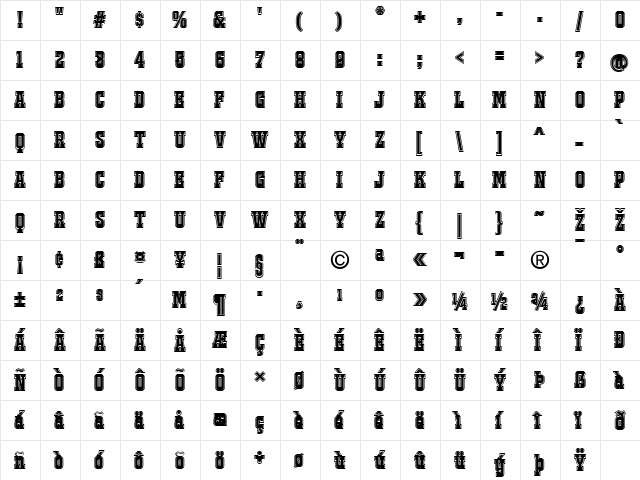
JACKPORT COLLEGE NCV Regular
Design Context for JACKPORT COLLEGE NCV Typeface
JACKPORT COLLEGE NCV has the bold swagger of sports branding: strong, assertive letterforms designed to dominate headlines and jerseys alike.
A natural choice for gym brands, fantasy sports, jersey lettering, and action-driven headlines.
Font Pairing: Use alongside a condensed or geometric sans for supporting copy — keep the pairing bold, functional, and free of ornament.
Pro Tip: Use JACKPORT COLLEGE NCV in all-caps headlines where its athletic energy can fully express itself. Pair with a solid, simple sans for supporting text.